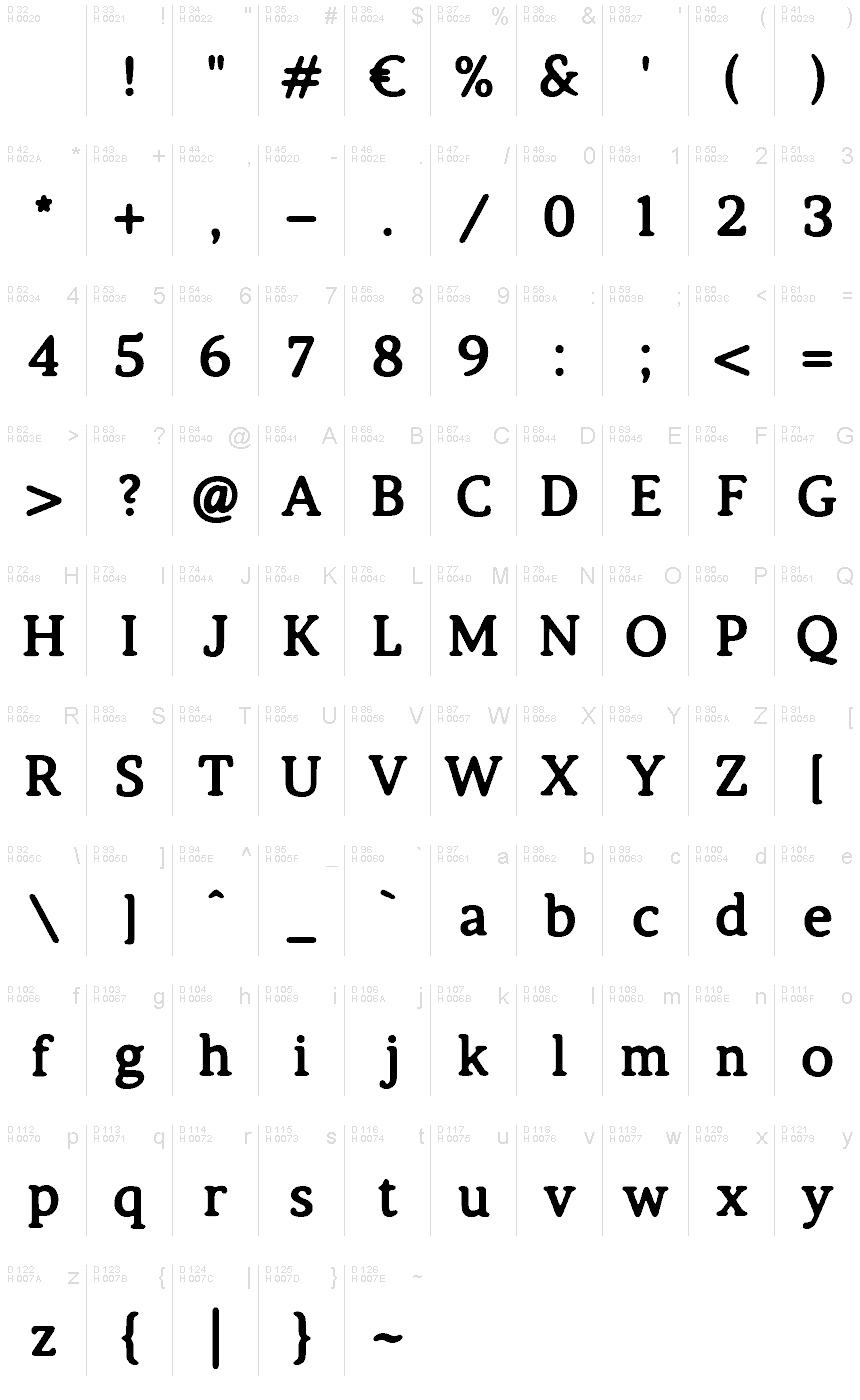
Tess-Rounded
Tess Rounded font, by Naan Type Studio, combines retro, geometric influences with organic curves and slab serif associations. This free serif font showcases modern applications in editorial design and branding, presenting a unique and stylish look. It is versatile and has the potential to impact any design project.